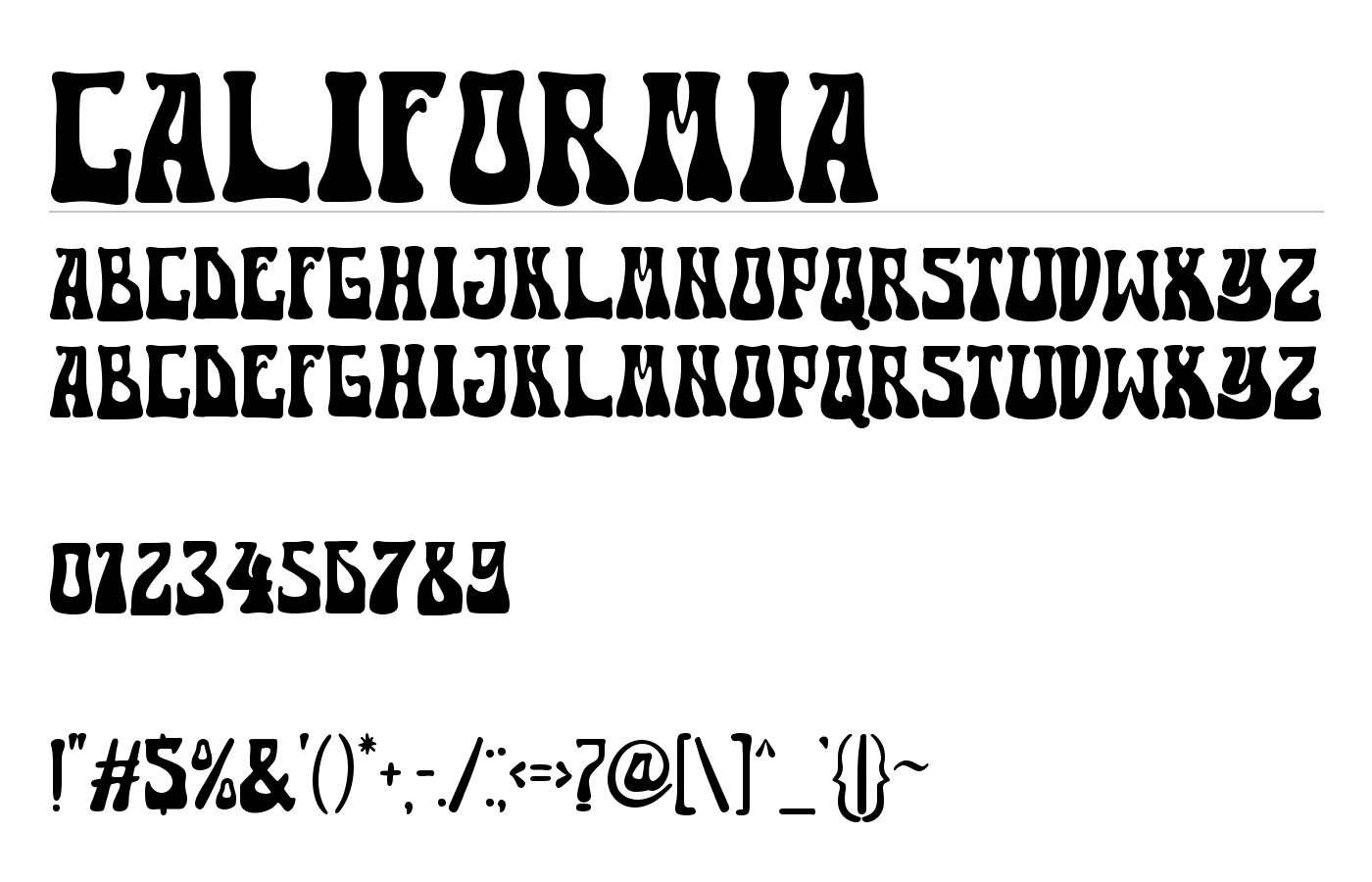
Califormia is a bold, condensed display font with a distinctive retro and psychedelic vibe, featuring thick, irregular strokes that create a playful yet vintage atmosphere. Its high contrast and quirky letter shapes make it perfect for eye-catching headlines, posters, and branding that aim to evoke a fun, nostalgic spirit. This font works best in creative projects where a bold, unique personality is needed to stand out.
Califormia Font
About Califormia Font
| Font family | Califormia Font |
| Designer | Masa Aska Sanurumi |